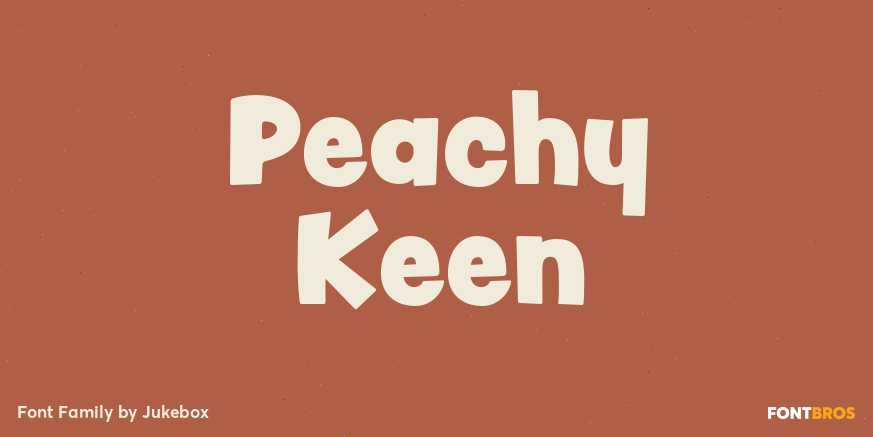
Peachy Keen
Peachy Keen welcomes you with child-like innocence and fun. The playful sans serif letterforms are perfect for any design where a light hearted feeling is needed. Jukebox fonts are available in OpenType format and downloadable packages contain both .otf…